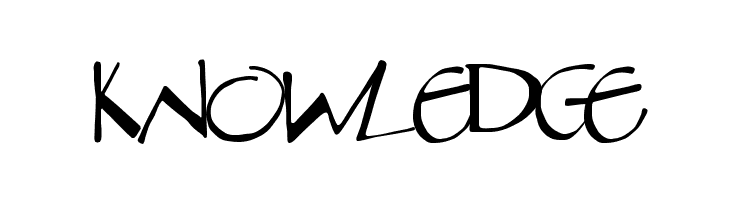
Lukis Fancy Font Regular Font
- Font: Lukis Fancy Font Regular
( Fonts by Digital Graphics Labs - www.digitalgraphiclabs.com )
A bold, hand-drawn font with irregular strokes and dynamic, artistic flair.